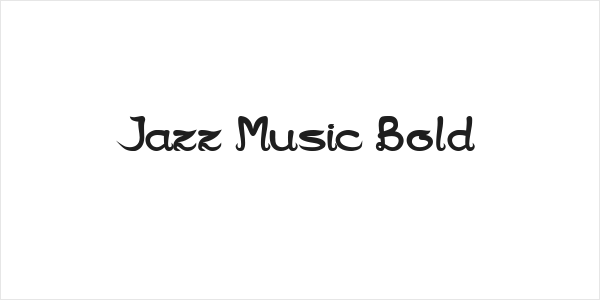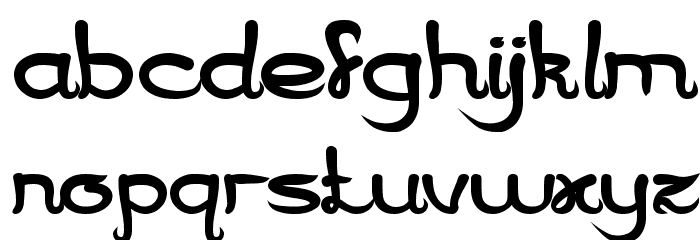
Jazz Music Bold Font
Jazz Music Bold Description
This font features a bold and expressive style with a playful, jazzy flair. The characters are characterized by their thick strokes and whimsical curves, giving them a lively and dynamic appearance. The uppercase letters are bold and prominent, while the lowercase letters maintain a consistent flow with unique, artistic loops and swirls. Numbers and special characters follow the same playful design, making them stand out with their decorative elements. The overall look is both modern and retro, reminiscent of jazz music's vibrant and energetic spirit.
| Overall Style | Modern, Retro |
| Proposed Projects | Ideal for music event posters, album covers, creative branding, and artistic projects that require a lively and dynamic typeface. |